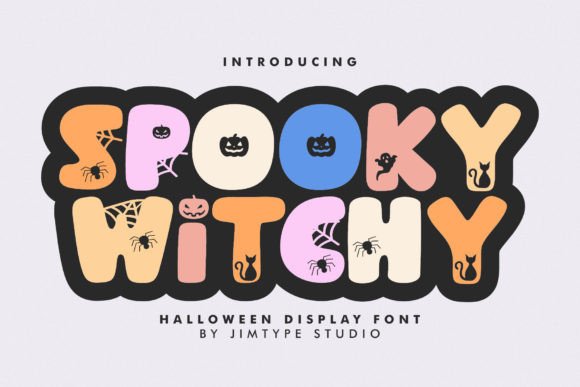
Welcome to our captivating collection of fonts, featuring the mesmerizing and enchanting "Spooky Witchy" font. Created by the talented jimtypestudio, this decorative font is specifically designed to elevate your Halloween-themed projects and add a touch of magic to your creative endeavors.
With its bewitching charm and captivating sans display, the "Spooky Witchy" font is the perfect companion for conjuring up Halloween designs that will leave a lasting impression. This font allows you to embrace the spooky season with style and elegance, unleashing your creativity like a witch soaring on her broomstick.
Imagine the possibilities – from eerie posters and haunted party invitations to spellbinding social media graphics and wickedly impressive website headers. The "Spooky Witchy" font brings a sense of mystery and excitement to any project, drawing in your audience and leaving them in awe.
Why settle for ordinary fonts when you can indulge in the extraordinary? Our font collection offers a diverse range of options, but the "Spooky Witchy" font stands out as the best choice for Halloween-themed designs. Its eye-catching appeal and unique character make it the ultimate tool for capturing attention and creating an unforgettable experience.